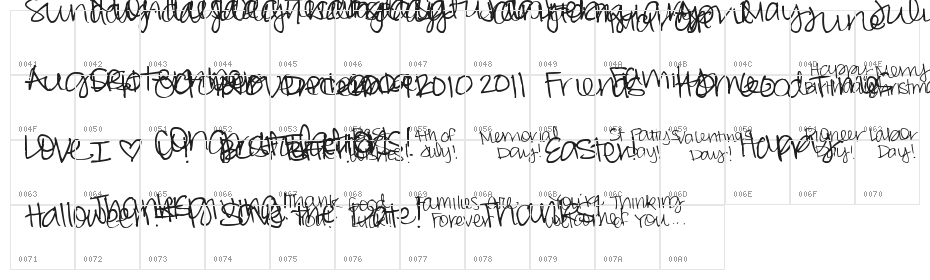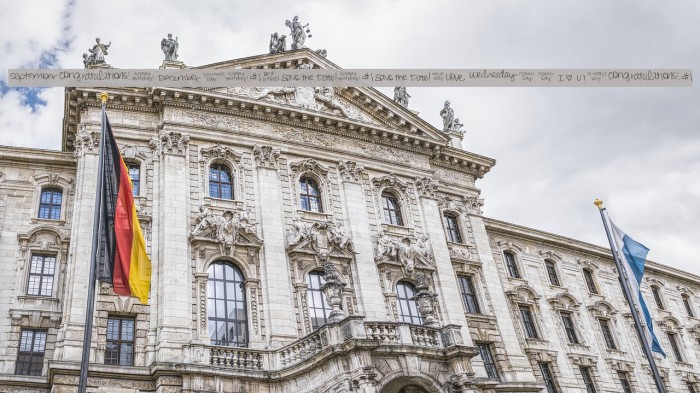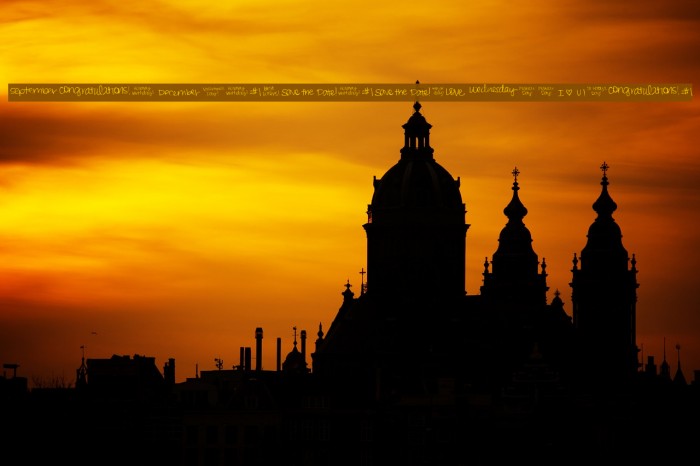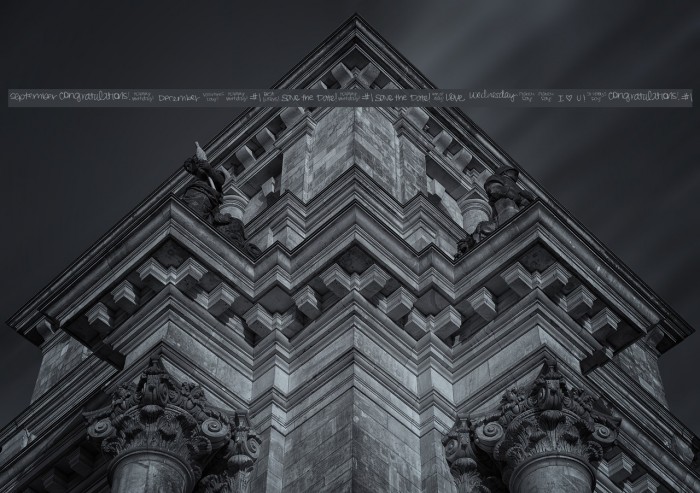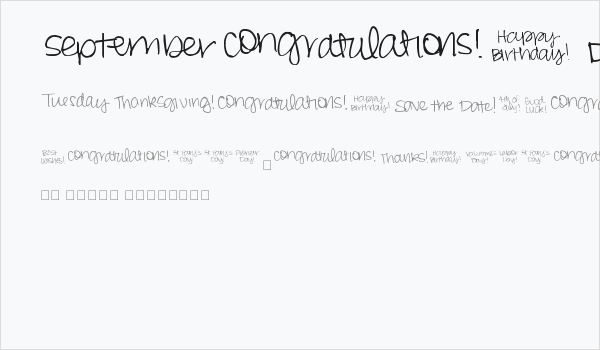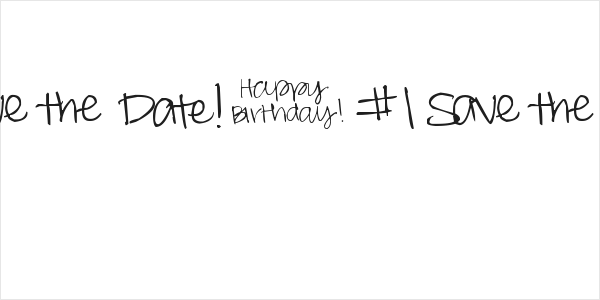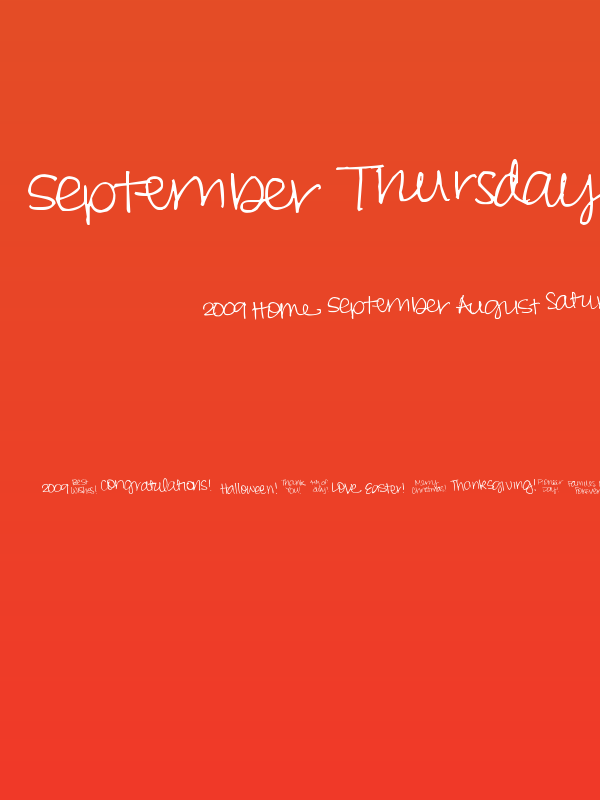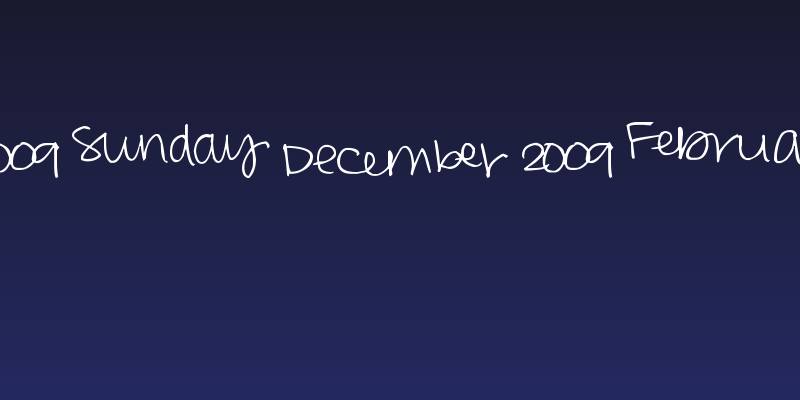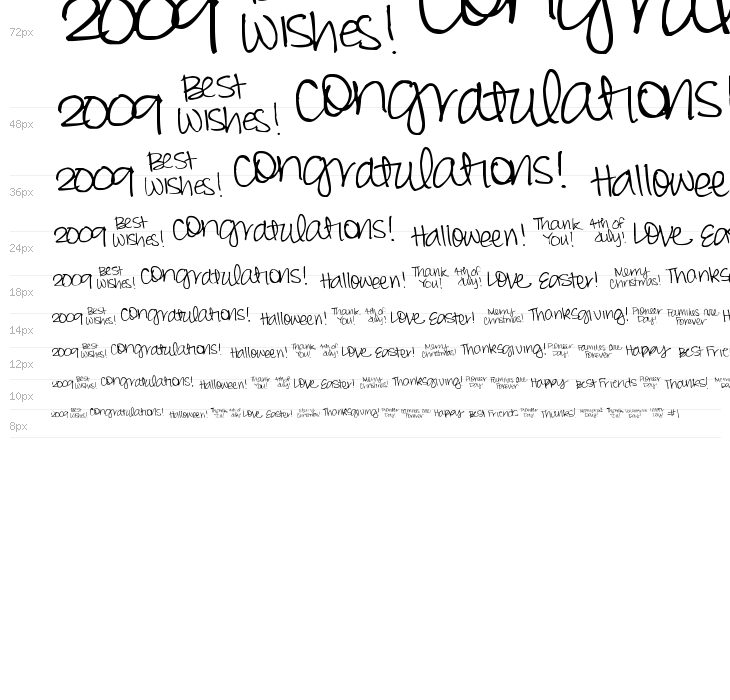
Pea Smashtastic Doodles Font
Pea Smashtastic Doodles Description
This playful and whimsical font features a handwritten style with a casual, friendly appearance. The letters are slightly irregular, giving it a personal touch that mimics natural handwriting. It includes a variety of doodles and decorative elements that enhance its charm, making it ideal for creative projects. The font maintains a consistent flow with moderate spacing, ensuring readability while retaining its unique character. It is perfect for adding a fun and informal vibe to any design, with its light-hearted and approachable aesthetic.